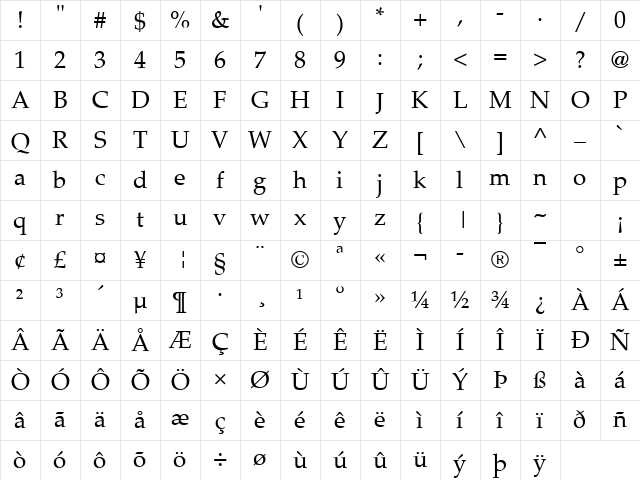
Complete Palladio Becker Regular glyph index. Displaying only characters natively supported by Palladio Becker Regular font.
Palladio Becker is a composed and adaptable typeface that performs quietly and consistently across a wide range of design contexts.